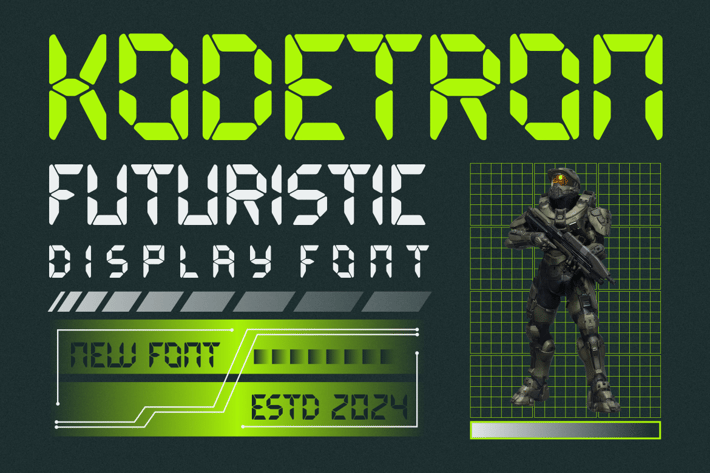
Futuristic Display Font
Proudly present our new product Futuristic Display Font
is a modern and authentic font. Perfect for professional needs and product branding, this font is suitable for any branding project such as quotes, logos, blog headers, posters, ribbons, letters, invitations, stationery, etc... Designed to be versatile and flexible that can be used on a variety of projects and media. extraordinary in a variety of contexts.